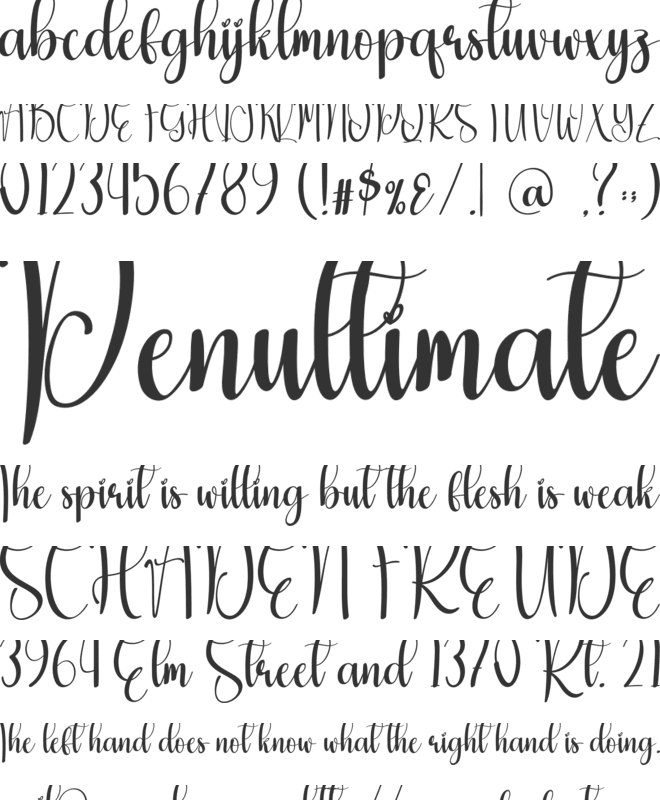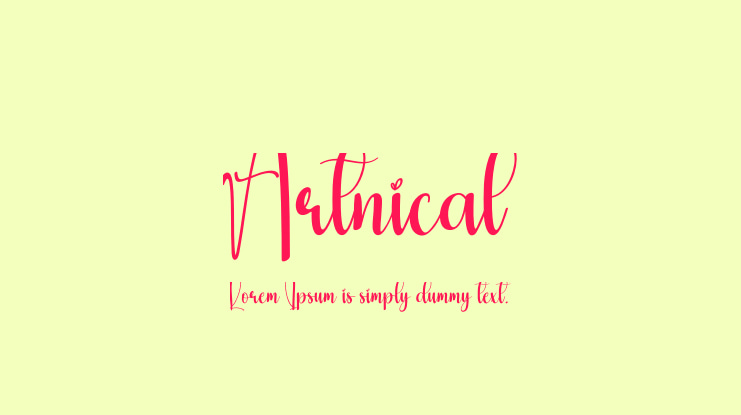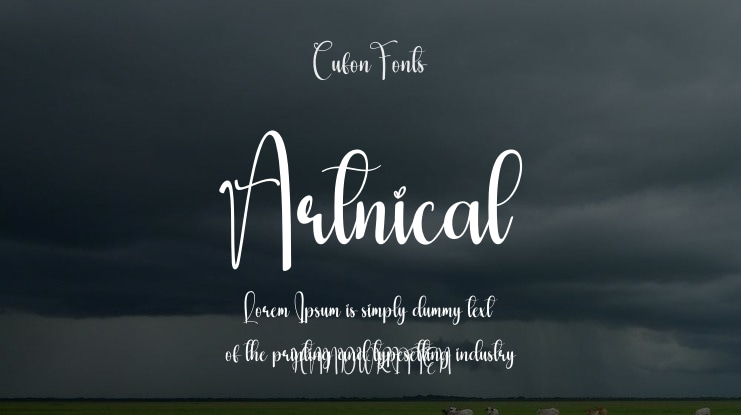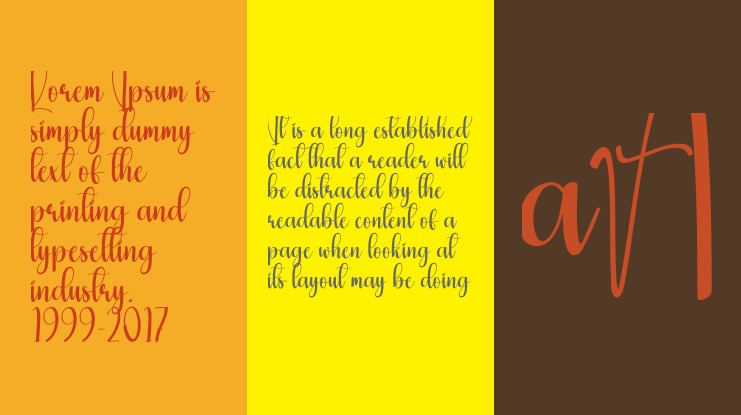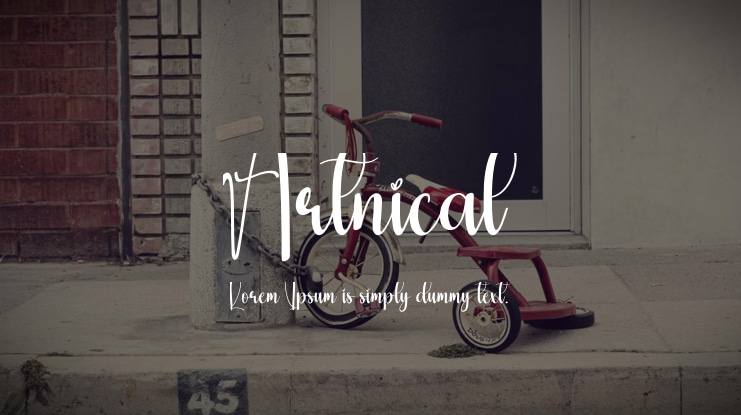
The latest style letters are ideal for enhancing wall displays, wedding invitations, social media post logos, advertisements, product packaging, designs, labels, photography, watermarks, invitations, stationery, and any project that demands elegant handwriting.